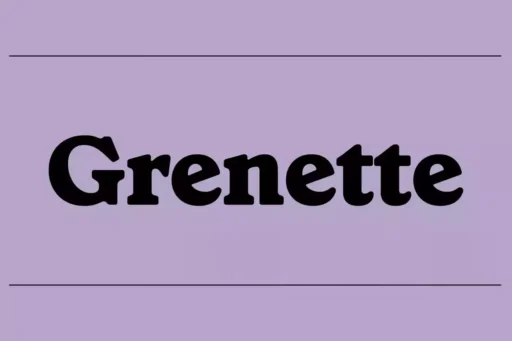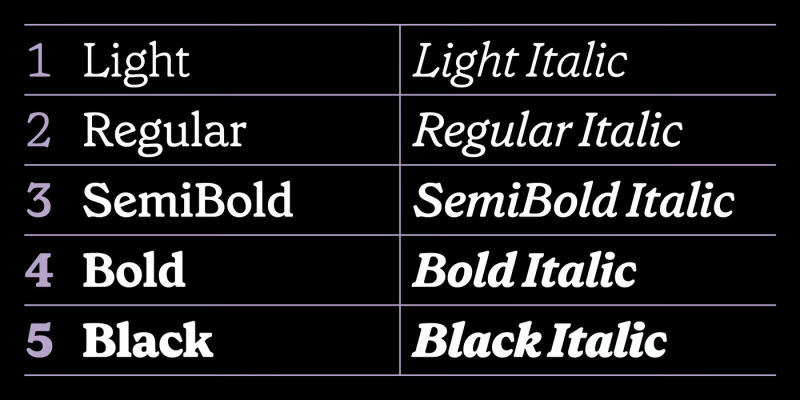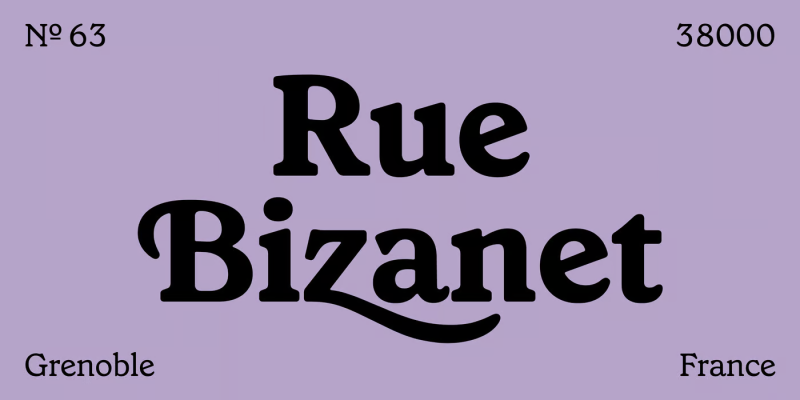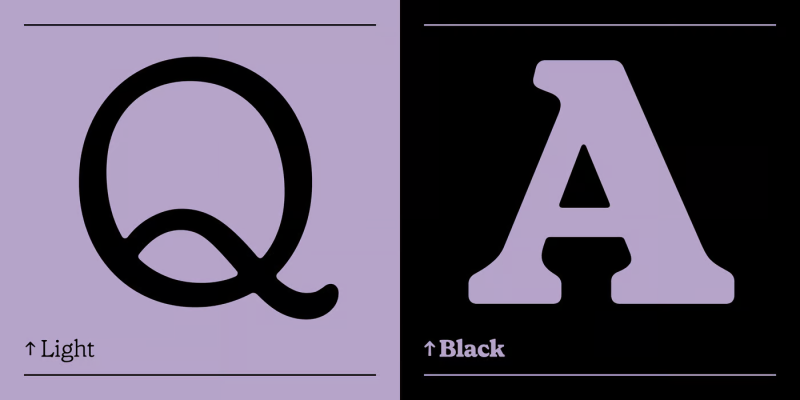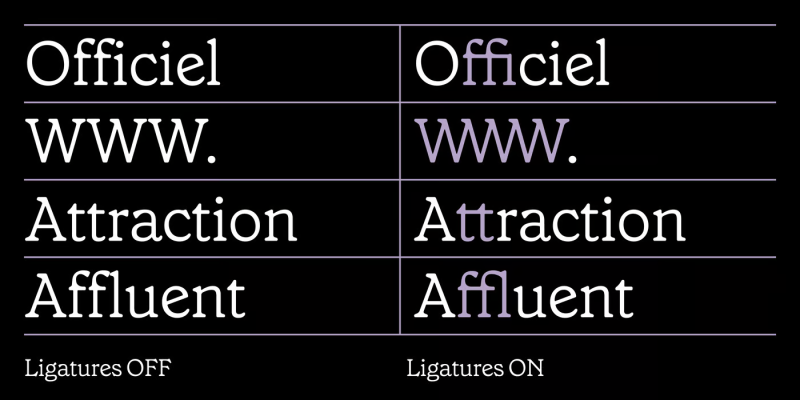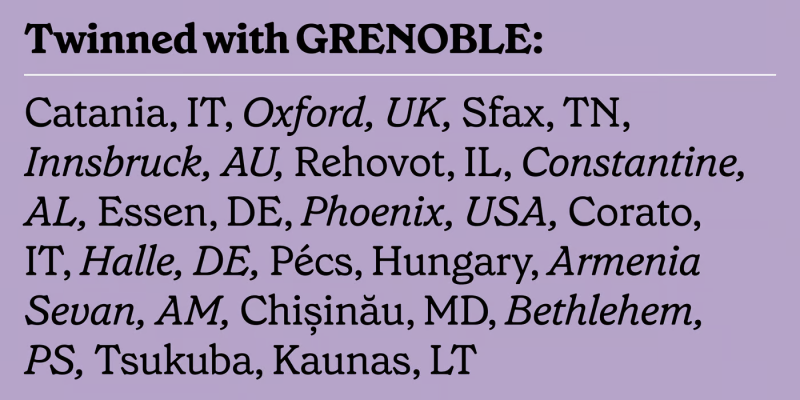
Grenette Font
Grenette is a serif font family by Colophon Foundry, which is quite famous for designing serifs and other beautiful fonts. It draws from two notable sources: The Windsor, shown in Stephenson Blake & Co’s Wood Letter Specimen of 1915, and the Richmond Old Style, illustrated in DeLittle’s *Wood Type Specimens* of 1966. What comes from this is a nice balance of traditional charm and modern functionality.
The unusual green of Grenette is what makes it special. In characters like «n», «h», and «v» the interior is serif-less while the bold serifs stand out, while in other characters like «g», the interior is as bold as the serifs are, but much smaller. However, this deliberate asymmetry, with a handful of its subtle quirks, makes the typeface special. It’s organic and approachable but still versatile enough for a number of uses.
Working with weight is one of Grenette’s defining characteristics. The serifs are bulging and slightly rounded and give a softer, more light feel in lighter styles. As the weight climbs closer to Black, the serifs switch to solid, square, and sturdy looking: robust and confident. The result is a conformation that allows Grenette to have a unique yet coherent personality at every weight.
The upper case letters give an additional depth of expressiveness, especially in ALL CAPS situations. «U», «B», «R» and «D» characters have vertical stresses which bulge outwards, giving visual interest, texture. These are the details which make Grenette the perfect choice for producing designs that need personality and versatility.